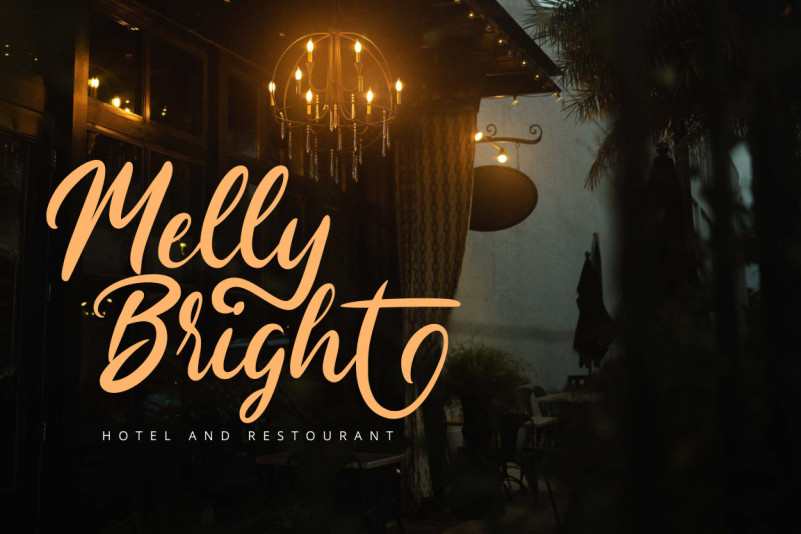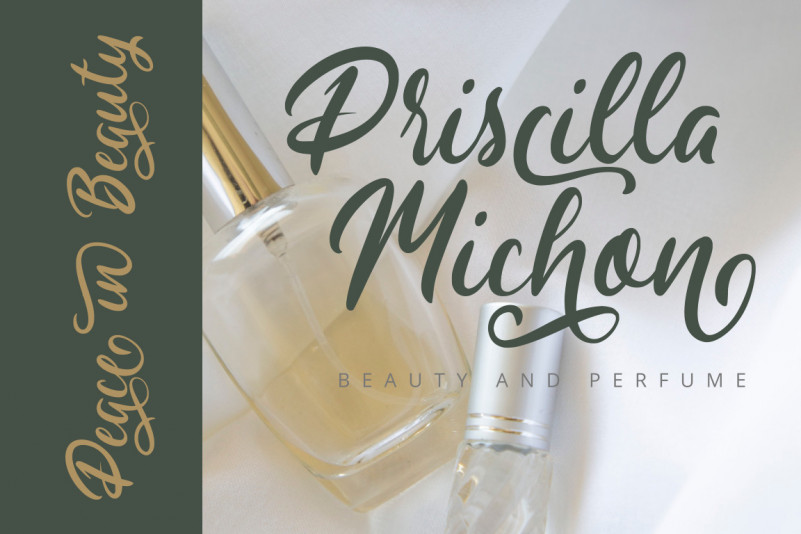
Sing Kagu Script Font
Sing Kagu is a delicate, elegant and flowing handwritten font. It has beautiful and well balanced characters and as a result, it matches a wide pool of designs. Its stylish alternates and ligatures make this font the perfect match for any project.